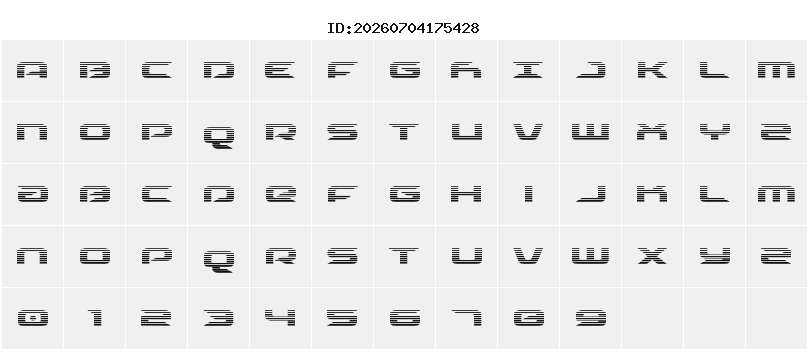
Drive Scanlines Preview
• Font Name: Drive Scanlines
• Full Font Name: Drive Scanlines
About Drive Scanlines.ttf
Drive Scanlines.ttf is a modern, elegant sans-serif font designed for ultimate readability and visual harmony. Perfect for branding, headlines, web design, and print materials.